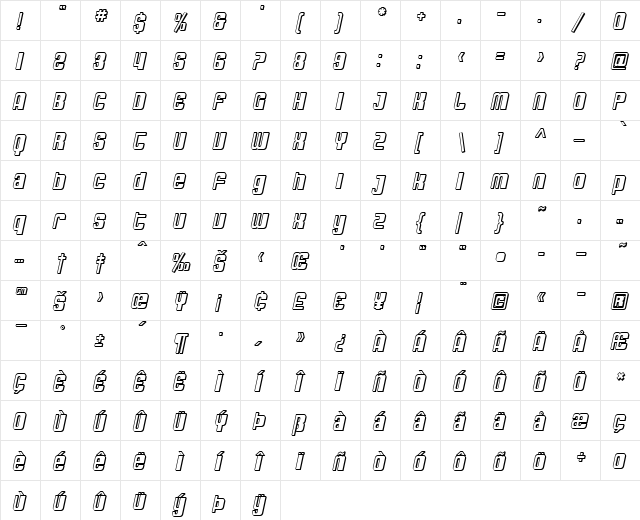
SF DecoTechno Shaded Oblique
Design Context for SF DecoTechno Shaded Typeface
SF DecoTechno Shaded has a distinctly futuristic character, with geometric precision and clean angles that feel at home in technology, gaming, and sci-fi contexts. The dynamic lean of this cut emphasises speed and emphasis in any layout.